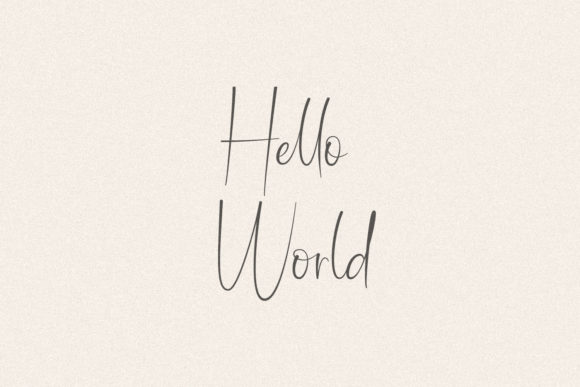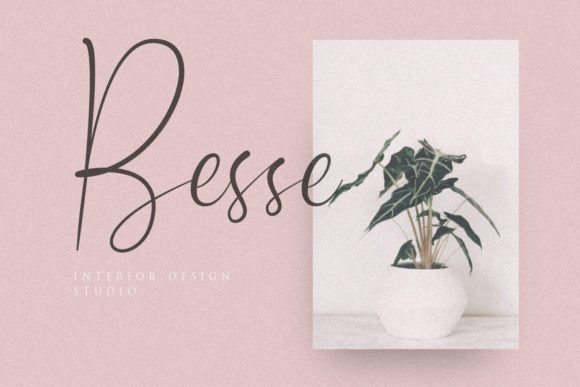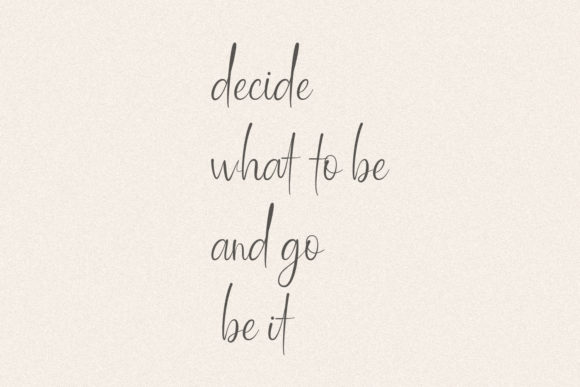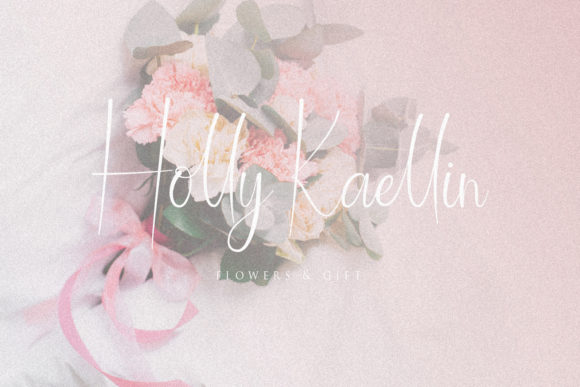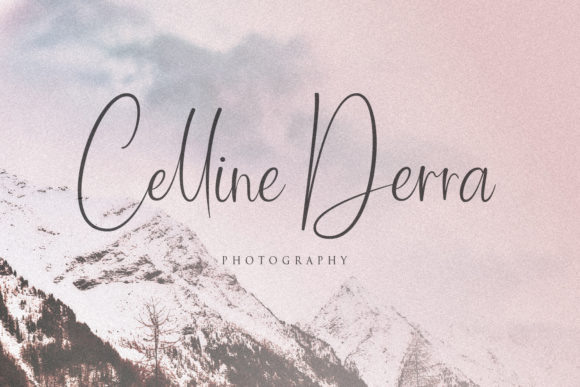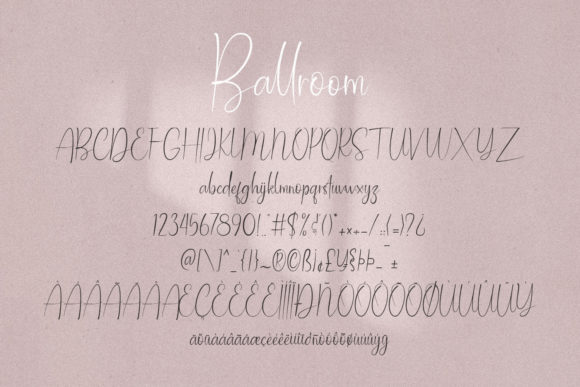
Have you ever sat down with a pen and paper, trying to bring an idea to life? The scratch of the pen on the page, the flowing lines, and the imperfections all come together to create something truly unique. This is the magic of handwriting, and it’s exactly what the Ballroom Font captures.
This natural handwritten font is designed to add a touch of warmth and personality to your designs. Whether you’re creating a logo, invitation, or social media post, the Ballroom Font is the perfect addition to make your project stand out. With its versatility and charm, it’s no wonder why designers are falling in love with the Ballroom Font. Its value lies in its ability to evoke emotions and create a connection with your audience, making it a valuable tool for any designer looking to add a personal touch to their work.
Key Features of Ballroom Font
- Font Family: Ballroom Font is a modern, elegant script font with 6 different font styles: Regular, Italic, Bold, Bold Italic, Condensed, and Condensed Italic.
- Unique Characteristics: This font features a unique, handwritten feel with a mix of elegant and rustic elements, making it perfect for wedding invitations, greeting cards, and other creative projects.
Designer Review: Ballroom Font
Overall, Ballroom Font is a beautifully crafted font that shines ✨ in the right contexts. Its elegant and sophisticated design makes it perfect for high-end fashion, luxury brands, or any project that requires a touch of glamour.
- ✨ Elegant and refined design: Ballroom Font is perfect for projects that require a sense of luxury and sophistication.
- ✨ Beautiful ligatures: The font features beautiful ligatures that add to its overall elegance and sophistication.
- ✨ Wide language support: Ballroom Font supports a wide range of languages, making it a great choice for international projects.
However, there are some limitations:
- ⚠️ Limited font weights: Ballroom Font only comes in a limited number of font weights, which may not be suitable for projects that require a range of font weights.
- ⚠️ Not suitable for body text: Due to its elegant and refined design, Ballroom Font may not be suitable for body text, as it can be difficult to read at smaller font sizes.
Overall, I would say that Ballroom Font is a beautiful and elegant font that is perfect for high-end projects. However, its limitations may make it less suitable for other types of projects.
The Ballroom Font is ideal for formal events, weddings, and other elegant occasions. It’s also great for creating a vintage or retro feel in your designs.
For best results, use the Ballroom Font in conjunction with a elegant background and design elements.
Experiment with different font sizes and styles to create a unique and eye-catching design.
Alternatives to Ballroom Font
Copperplate Script
Copperplate Script is a classic calligraphic script font, ideal for formal and elegant designs. It is perfect for invitations, wedding stationery, and luxury branding. Copperplate Script is more refined and sophisticated compared to Ballroom Font, making it suitable for high-end designs.
Edwardian Script
Edwardian Script is a elegant and luxurious script font, often used for formal and high-end designs. It is ideal for creating a sense of sophistication and refinement, making it perfect for luxury branding, wedding stationery, and formal invitations. Edwardian Script is more refined and elegant than Ballroom Font, making it a great alternative for formal designs.